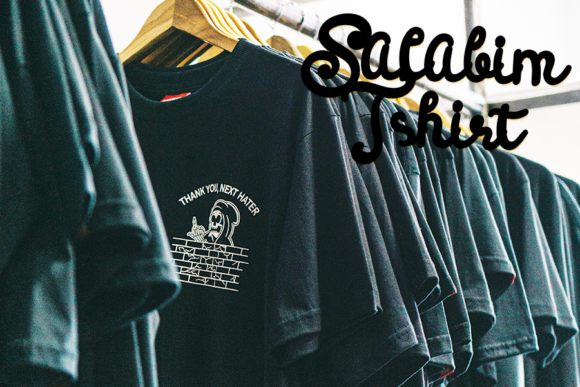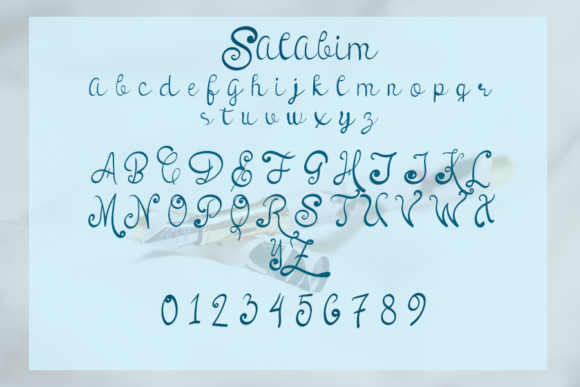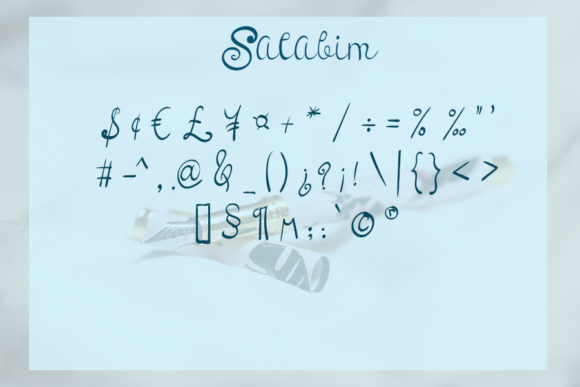
Introduction to Salabim Font
As a designer, have you ever found yourself stuck in a creative rut, struggling to bring your ideas to life? You know the feeling – you have a vision, but the right font just seems to be missing. That’s where the Salabim Font comes in, a chic script font that adds a touch of whimsy and charm to any project.
With its playful characters that seem to dance along the baseline, the Salabim Font is the perfect design resource for anyone looking to add a bit of personality to their creative project. Whether you’re working on a high-quality brochure, a website, or a social media graphic, this font is sure to make your design stand out.
Key Features of Salabim Font
- Designed with a focus on creativity and expression, making it perfect for any project that requires a touch of elegance and sophistication
Honest Review: Salabim Font
I recently stumbled upon the Salabim Font, and I must say it’s a fantastic addition to my design resource collection. The font’s unique style and versatility make it perfect for any creative project that requires a bit of flair.
- ⚠️ The font’s italic and bold variations could be more comprehensive, but overall, the font’s standard weights are well-executed.
- ⚠️ Some users may find the font’s unique style a bit too quirky for certain projects.
Overall, I’m very impressed with the Salabim Font. Its unique style, high quality, and free availability make it a valuable addition to any designer’s collection. I’ve already used it in a few projects, and I’m sure I’ll be reaching for it again soon.
Great Vibes Font is a more refined and polished alternative to Salabim Font, making it suitable for formal events or professional branding. While Salabim Font is bolder and more playful, Great Vibes Font is more subtle and elegant.